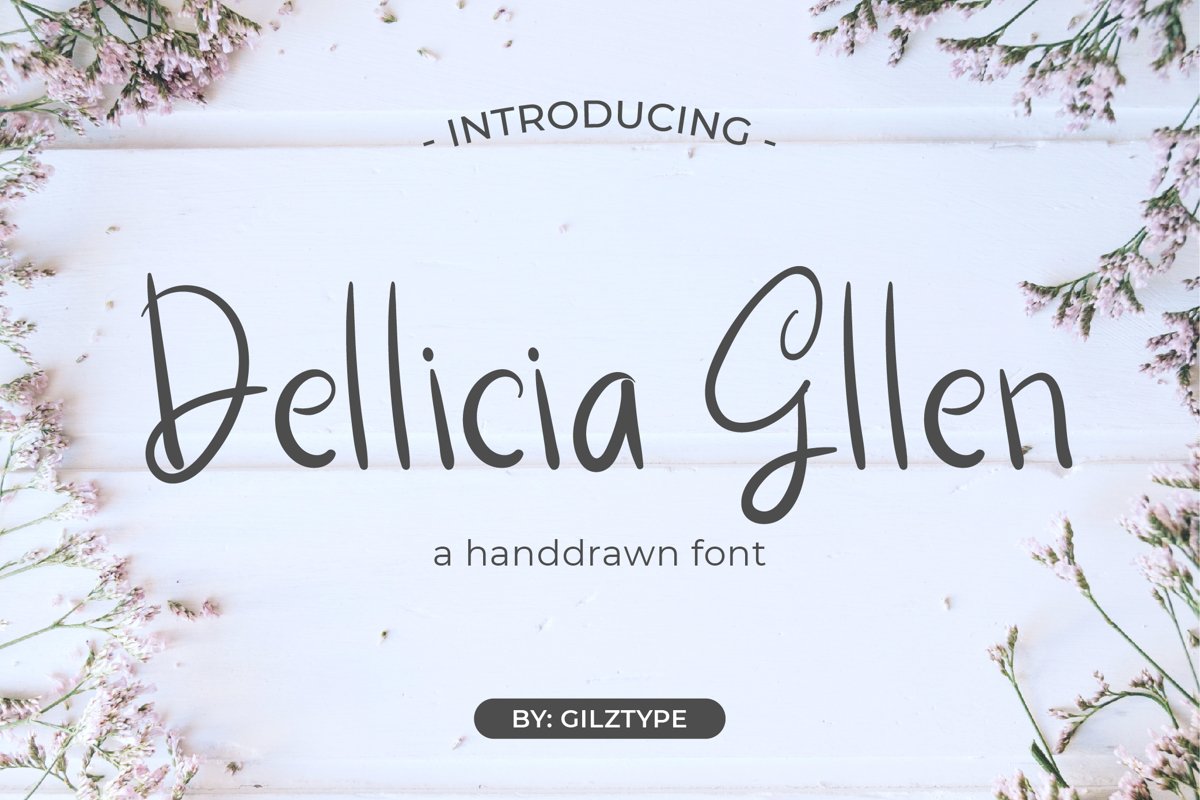
Dellicia Gllen - A Handrawn Font
Introducing Dellicia Gllen - A Handrawn Font
This font is perfect for professional quotes, cards, invitation, product design, labels, logos, apparel design and much more!